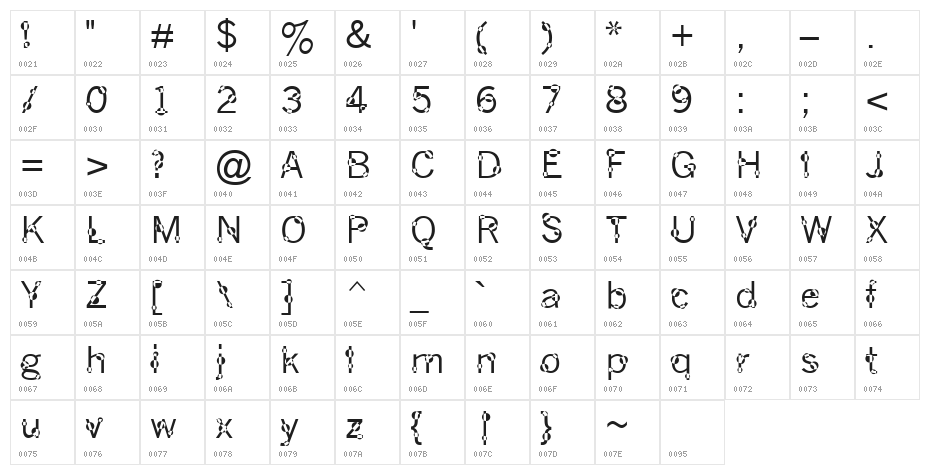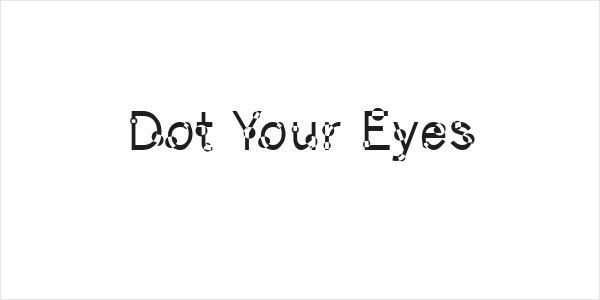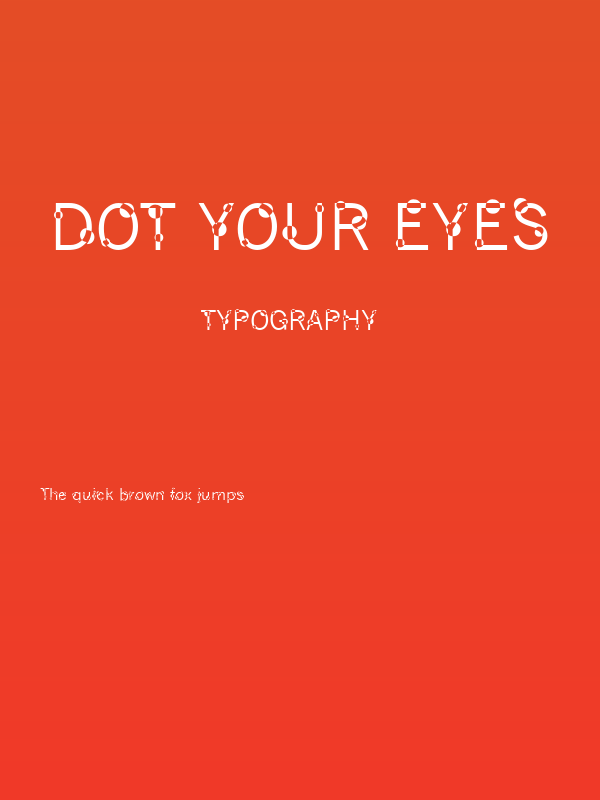
Dot Your Eyes Font
Dot Your Eyes Description
This font features a unique and playful design where each character is adorned with small circular dots at key points along the strokes. The dots add a whimsical and decorative touch, making the font stand out with a distinct personality. The characters maintain a clean and modern sans-serif structure, ensuring readability while offering a creative flair. The uniform placement of dots across both uppercase and lowercase letters, as well as numbers and special characters, provides a cohesive and consistent look. This font is ideal for projects that require a fun and engaging aesthetic, such as children's books, playful branding, or creative posters.
| Overall Style | Playful, Modern, Decorative |
| Proposed Projects | Ideal for children's books, playful branding, creative posters, and whimsical invitations. |